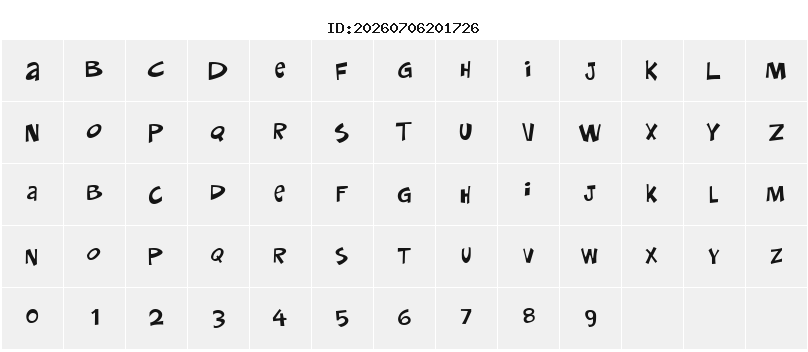
DenneyTwo Preview
• Font Name: DenneyTwo
• Full Font Name: DenneyTwo
About DenneyTwo.ttf
DenneyTwo.ttf is a modern, elegant sans-serif font designed for ultimate readability and visual harmony. Perfect for branding, headlines, web design, and print materials.